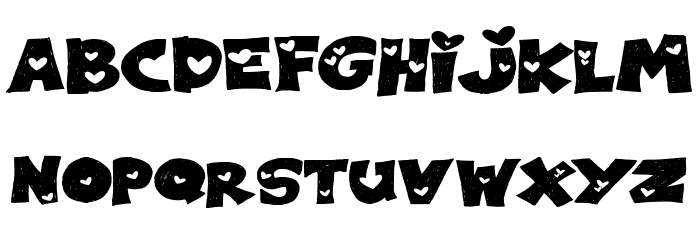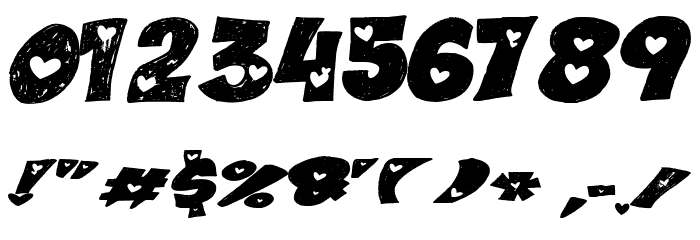
PUPPY LOVE BRUSH Font
This playful and whimsical font features bold, chunky letters with a brush-like texture. Each character is adorned with heart-shaped cutouts, adding a charming and affectionate touch. The uppercase and lowercase letters maintain a consistent style, with rounded edges and a slightly irregular form that enhances its hand-drawn appearance. The numbers and special characters follow the same design, making it cohesive and versatile. This font is perfect for projects that require a fun and loving vibe, such as children's books, greeting cards, or playful branding.
A playful, heart-adorned brush font with a whimsical and loving style.
- Proposed Projects: Ideal for children's books, greeting cards, playful branding, and Valentine's Day promotions.
- Overall Style: Playful, Whimsical
- Use Case: Headlines, Logos, Decorative text